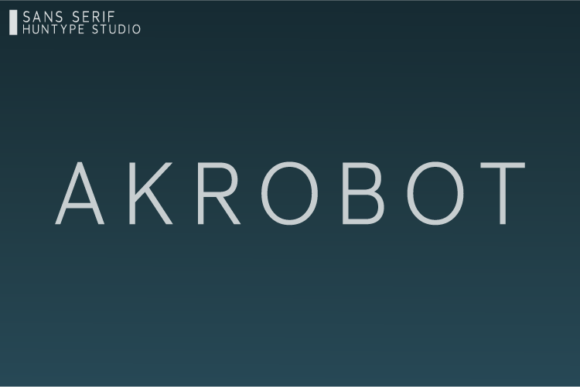
Introducing Akrobot Font: Elevate Your Designs with Elegance and Versatility
In the world of typography, fonts play a crucial role in conveying messages, evoking emotions, and creating lasting impressions. For designers and crafters seeking a unique and sophisticated touch, Akrobot font emerges as an exceptional choice. This distinct, elegant sans serif font seamlessly blends traditional influences with a contemporary aesthetic, offering a versatile and refined look for various design projects.
The Distinctive Features of Akrobot Font
Akrobot font boasts well-balanced Latin details that showcase distinctive contrasts, setting it apart from more generic sans serif fonts. Its elegant design ensures that it can be used across a range of applications, from digital platforms to print materials, without losing its visual appeal. The subtle yet exquisite look of Akrobot makes it an ideal choice for designers aiming to add a touch of sophistication to their work.
Traditional Influences Meet Contemporary Aesthetic
What makes Akrobot truly stand out is its ability to merge traditional typographic influences with a modern, clean aesthetic. This blend allows Akrobot to cater to a wide array of design needs, ensuring that your projects look both current and timeless. Whether you’re working on a branding project, a website, or crafting materials, Akrobot provides the perfect balance of elegance and readability.
One of the key advantages of using Akrobot font is its maximum versatility. Designers can use it in a variety of contexts, from headlines and titles to body text, without compromising on style or legibility. This versatility makes Akrobot an excellent addition to any designer’s font library, as it can adapt to different project requirements with ease.
Why Choose Akrobot Font?
- Elegant and Subtle Look: Achieve a refined and sophisticated aesthetic with Akrobot’s unique design.
- Versatility: Use Akrobot across various design projects, ensuring consistency and style.
- Readability: Despite its elegant design, Akrobot maintains high readability, making it suitable for both headings and body text.
- Contemporary Aesthetic: Stay modern with a font that blends traditional influences with a clean, contemporary look.
Akrobot font offers a unique combination of elegance, versatility, and readability, making it an invaluable asset for designers and crafters. By incorporating Akrobot into your projects, you can achieve a sophisticated look that sets your work apart. Explore the possibilities with Akrobot and discover how this exquisite sans serif font can transform your designs.
Akrobot Font Key Features:
- Distinct, elegant sans serif font
- Blends traditional influences with a contemporary aesthetic
- Well-balanced Latin details with distinctive contrasts
- Ideal for achieving an exquisite, yet subtle look
- Offers maximum versatility across various design projects
Embrace the elegance and versatility of Akrobot font in your next design project and experience the difference it can make.